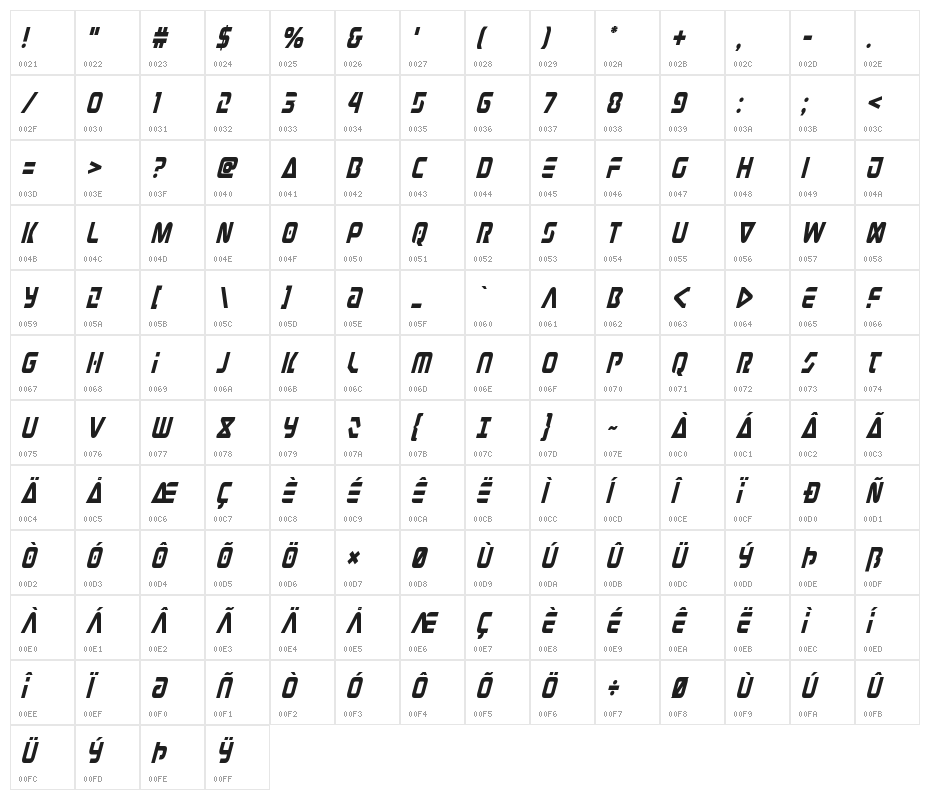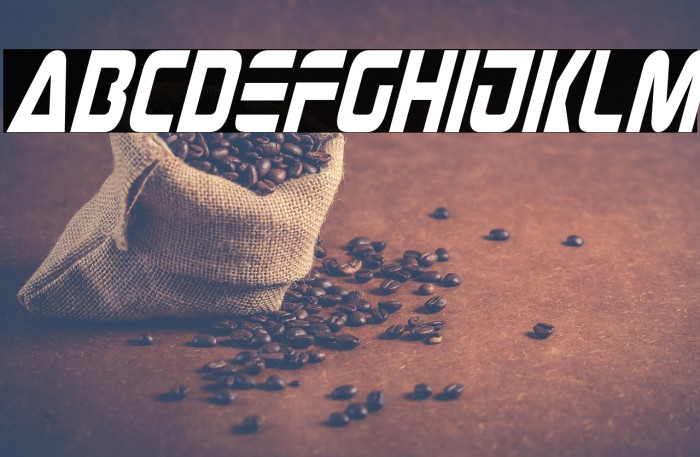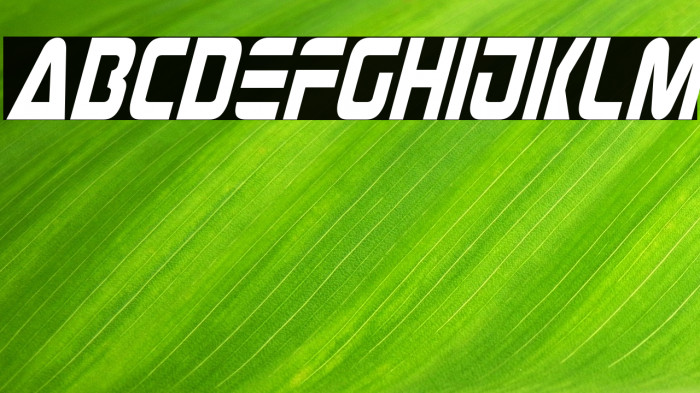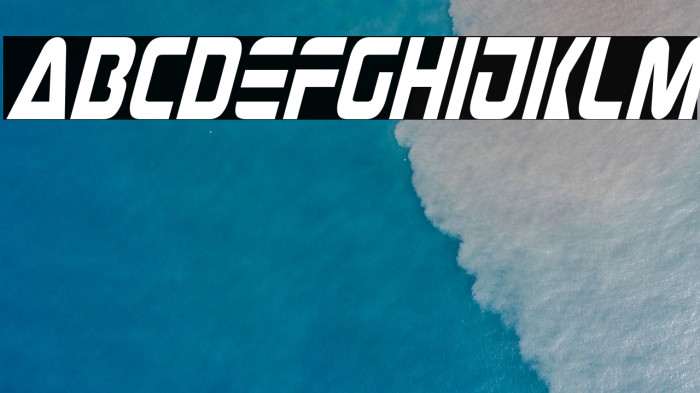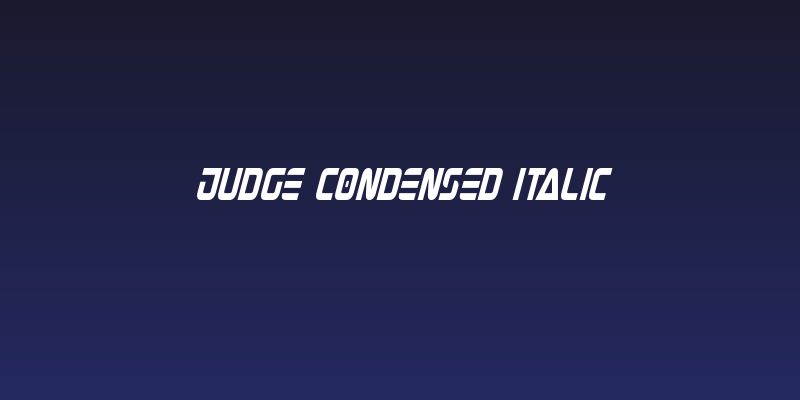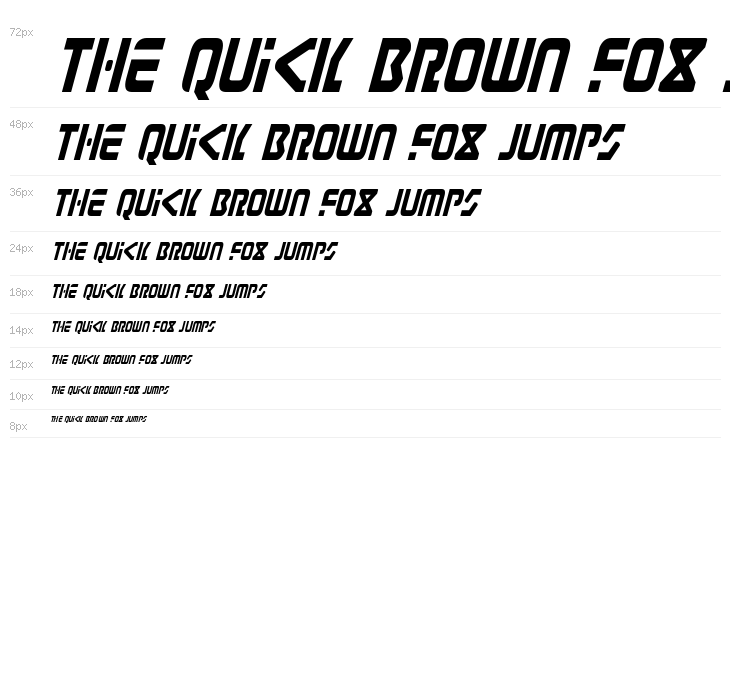
Judge Condensed Italic Font
Judge Condensed Italic Description
This font features a bold and dynamic design with a distinctly futuristic and geometric style. The characters are sharply angled, giving them a sense of motion and energy. The italic slant adds to the dynamic feel, making it appear as if the text is in motion. The condensed width of the characters allows for efficient use of space, making it ideal for impactful headlines. The stroke contrast is low, maintaining a uniform thickness throughout each character, which enhances readability. The unique shapes of certain letters, such as the 'A' and 'R', add a creative flair, making this font suitable for modern and edgy design projects.
Proposed ProjectsIdeal for sci-fi themed designs, technology branding, sports team logos, and dynamic posters.